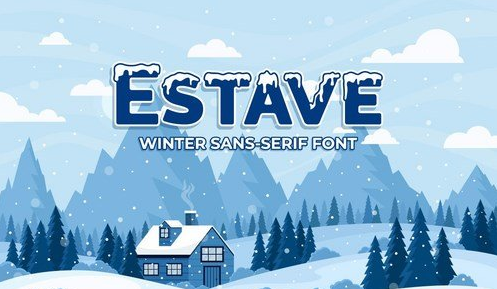
Introducing the Estave – Winter Sans Serif Font! This delightful digital download offers instant access to a chic, modern typeface that adds a crisp, seasonal flair to all your creative projects. Whether you’re designing winter-themed graphics, festive branding, or eye-catching posters, this versatile sans serif font perfectly captures the essence of the chilly season! ❄️✨
The Estave font is not just any ordinary typeface; it embodies elegance and simplicity, making it an excellent choice for a variety of design needs. With its clean lines and minimalistic style, it brings a refreshing touch to your winter designs. Plus, it’s compatible with a wide range of design software, ensuring you can easily integrate it into your workflow. 🖌️
- Elegant and minimal sans serif style: Perfect for modern designs that require a touch of sophistication.
- Ideal for winter and holiday designs: Captures the essence of the season, making your projects stand out.
- Supports multiple languages and includes special characters: Great for international projects and diverse typography needs.
- Highly legible for both digital and print use: Ensures your message is clear no matter the medium.
- Comes with various font weights: Provides design flexibility to suit your specific project requirements.
- Complete character set including uppercase, lowercase, numerals, and punctuation
This font is a fantastic choice for graphic designers, branding experts, and anyone looking to infuse their projects with a winter vibe. It’s particularly useful for seasonal marketing campaigns, holiday cards, and any creative endeavor that celebrates the beauty of winter! 🎨